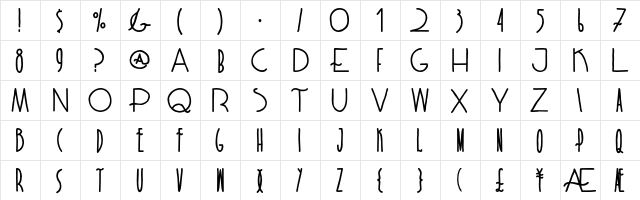
Rispadhd Regular
| Foundry | Konrad Bednarski |
| Designer | Konrad Bednarski |
Design Context for Rispadhd Typeface
Rispadhd offers clean, dependable letterforms without strong stylistic allegiance, making it a practical choice for designers who need flexibility.
Pro Tip: Pair Rispadhd with a font of contrasting weight or personality to build a more expressive typographic hierarchy.